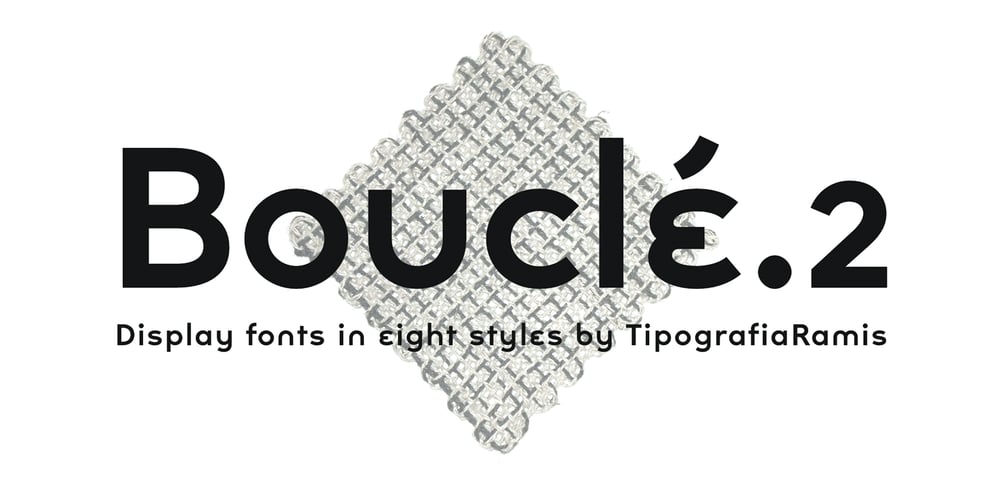
Boucle2 Font Family was designed by Ramiz Guseynov and published by TipografiaRamis. Boucle2 contains 8 styles and family package options. Bouclé.2 – an upgraded edition of Bouclé fonts (2009), with careful refinements to glyph shapes and extension of glyph amounts, which enabled support of more Latin languages. New edition consists of eight styles: Light, Regular, Bold weights for plain and round fonts respectably, plus Regular and Light italics. Typeface is released in OpenType format with some OpenType features.